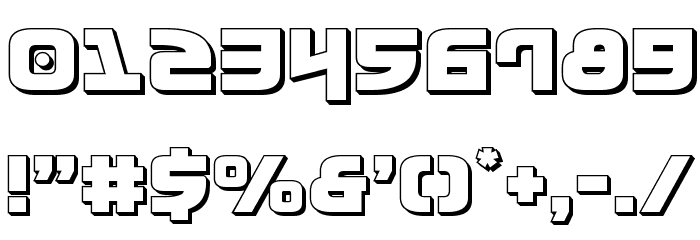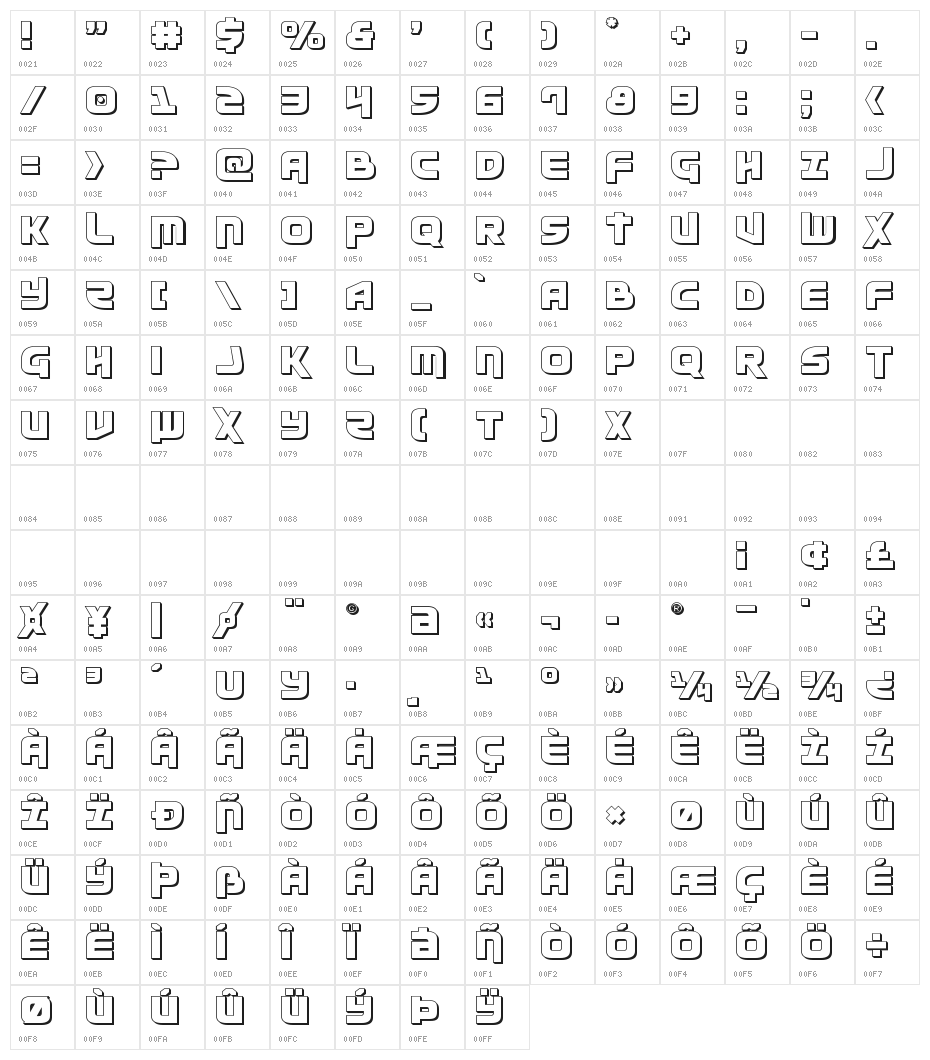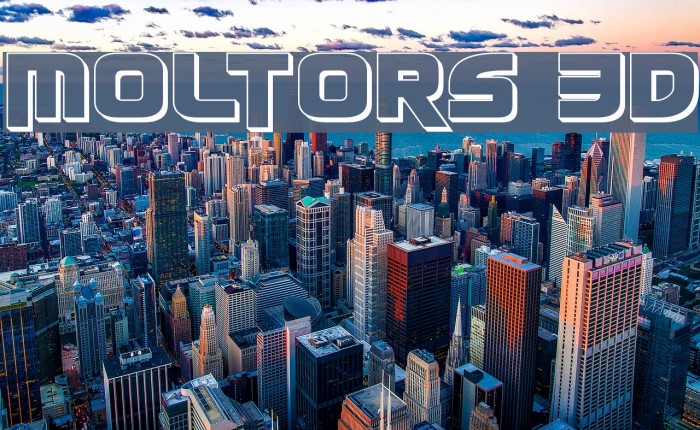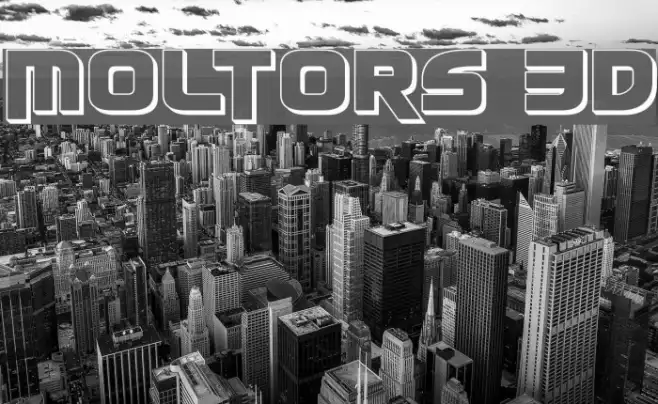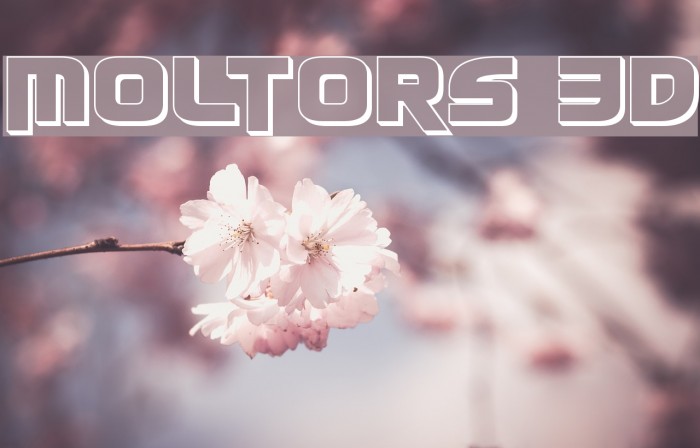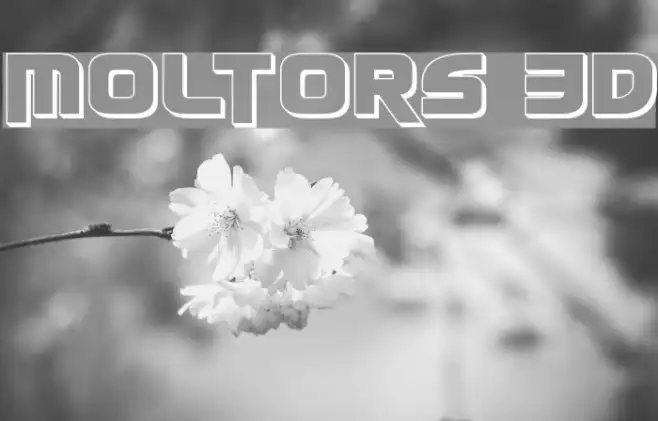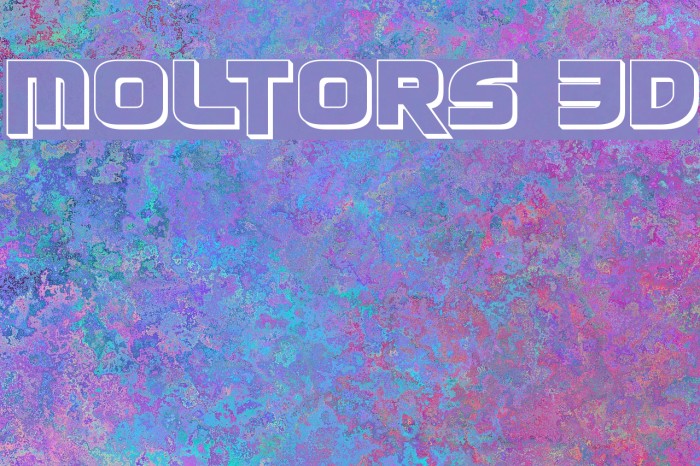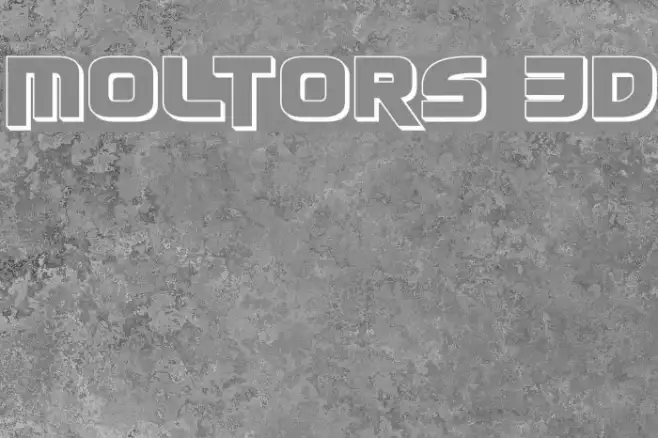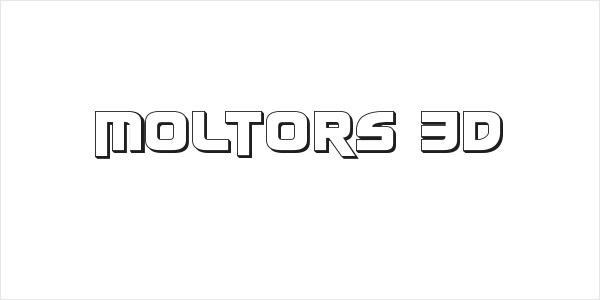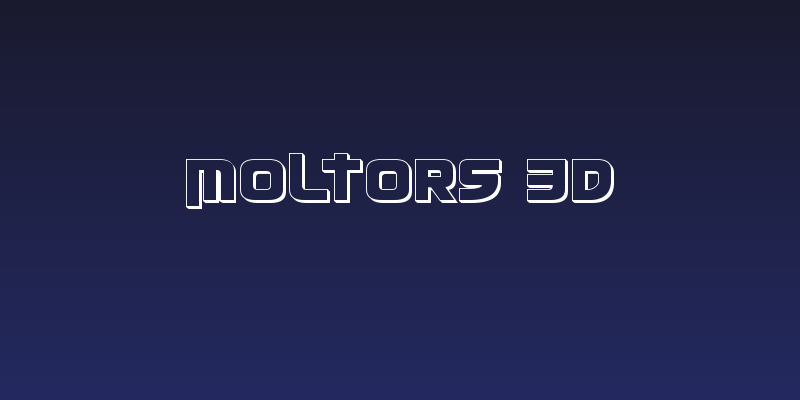
Moltors 3D Font
Moltors 3D Description
This font features a bold, three-dimensional appearance with a futuristic and geometric design. The characters are outlined, giving them a hollow look that enhances the 3D effect. The uppercase and lowercase letters maintain a consistent style, with sharp angles and clean lines. The numerals and special characters follow the same aesthetic, ensuring uniformity across the font. This design is eye-catching and modern, making it suitable for projects that require a standout typeface.
| Proposed Projects | Ideal for video game titles, sci-fi movie posters, tech company logos, and modern advertising campaigns. |